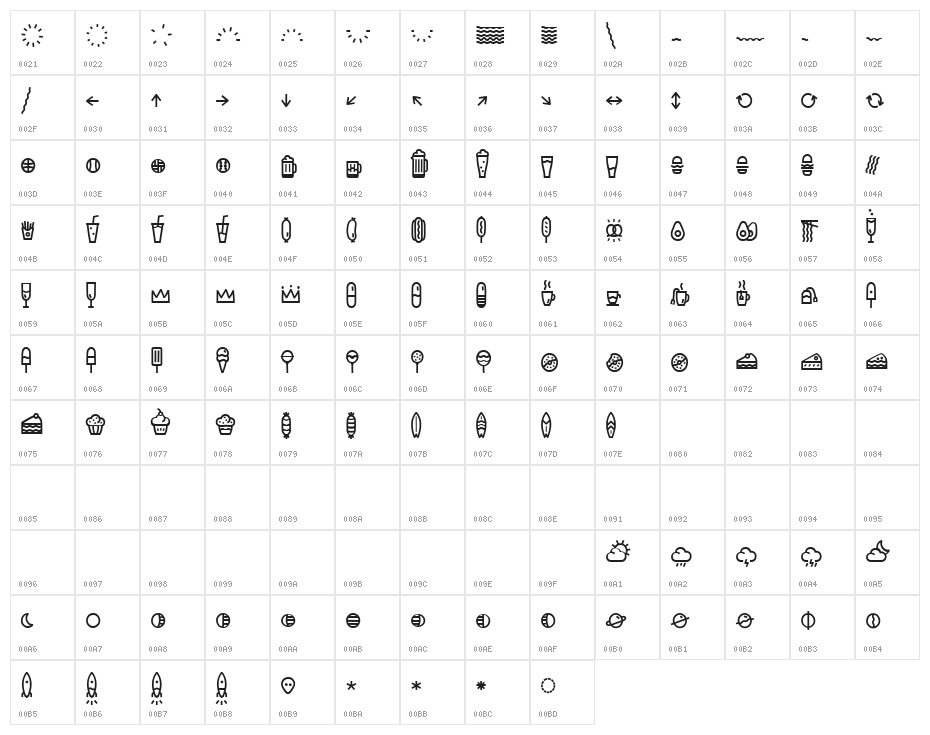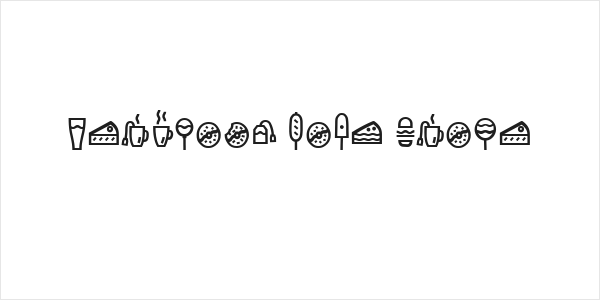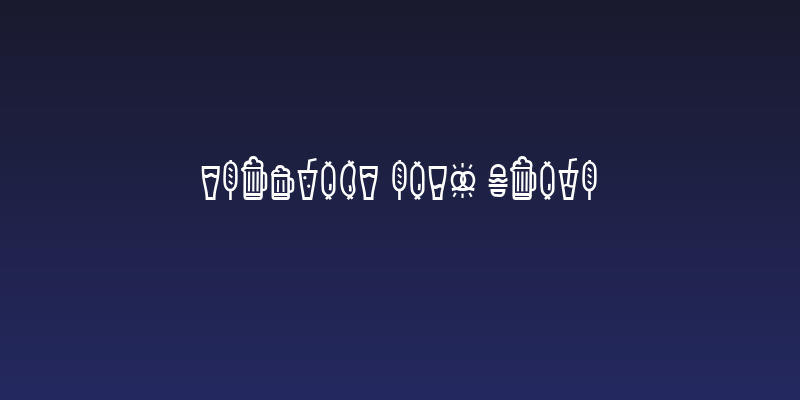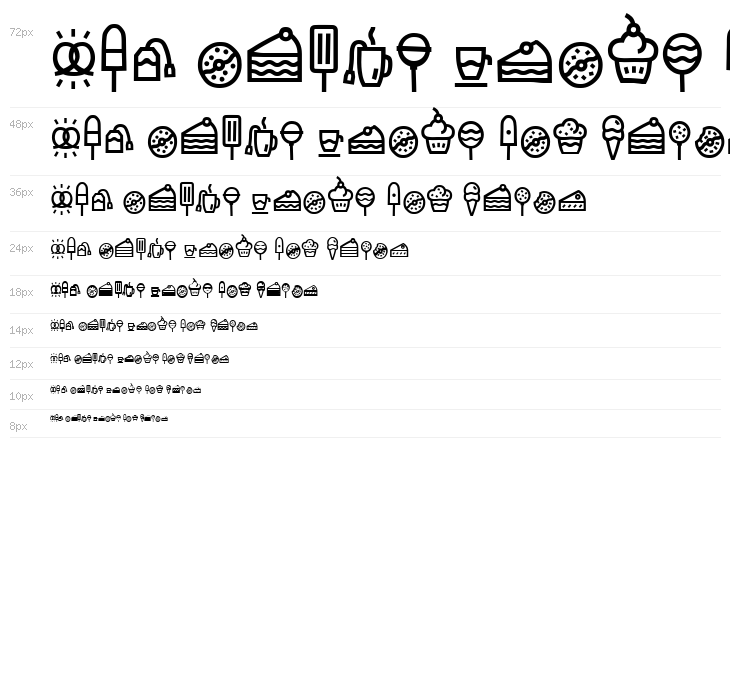
Escalope Soft Icons Font
Escalope Soft Icons Description
A playful, outlined icon set featuring food, drink, desserts, arrows, and decorative symbols. The icons are consistent in line weight, rounded corners, and have a friendly, approachable style suitable for digital interfaces.
| Overall Style | Playful, Modern, Decorative |
| Use Case | Icons, UI elements, branding, infographics |
| Proposed Projects | Mobile apps, restaurant menus, food delivery services, infographics, childrenΓ’β¬β’s educational materials, playful branding. |